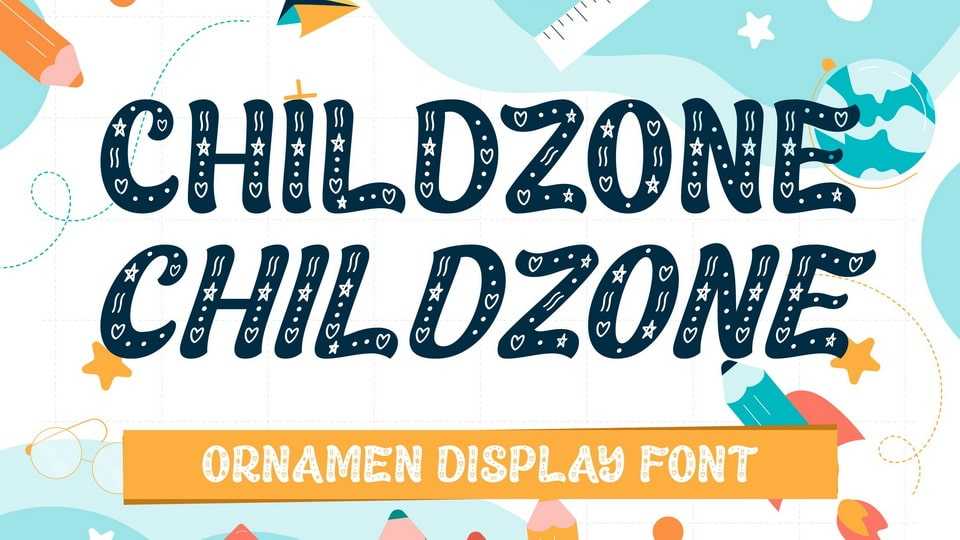
Download Childzone font, a cool and fun decorative font. It will elevate a wide range of crafting ideas, from cards, to branding, labels and much more.